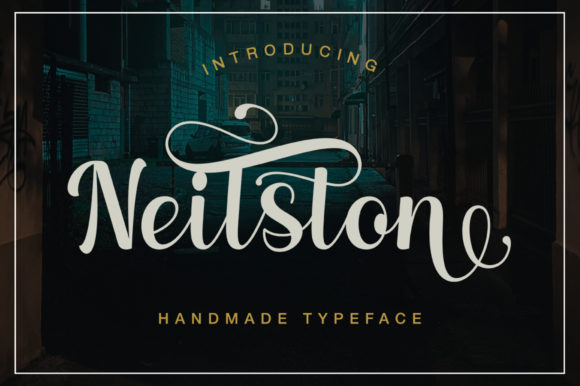
Neilston Font
About Neilston Font
Neilston is a gorgeous and bold handwritten font, crafted to give your headlines and logotype projects a stylish touch. This font reads as strong, confident, and dynamic and can add tons of nostalgic character to your designs.